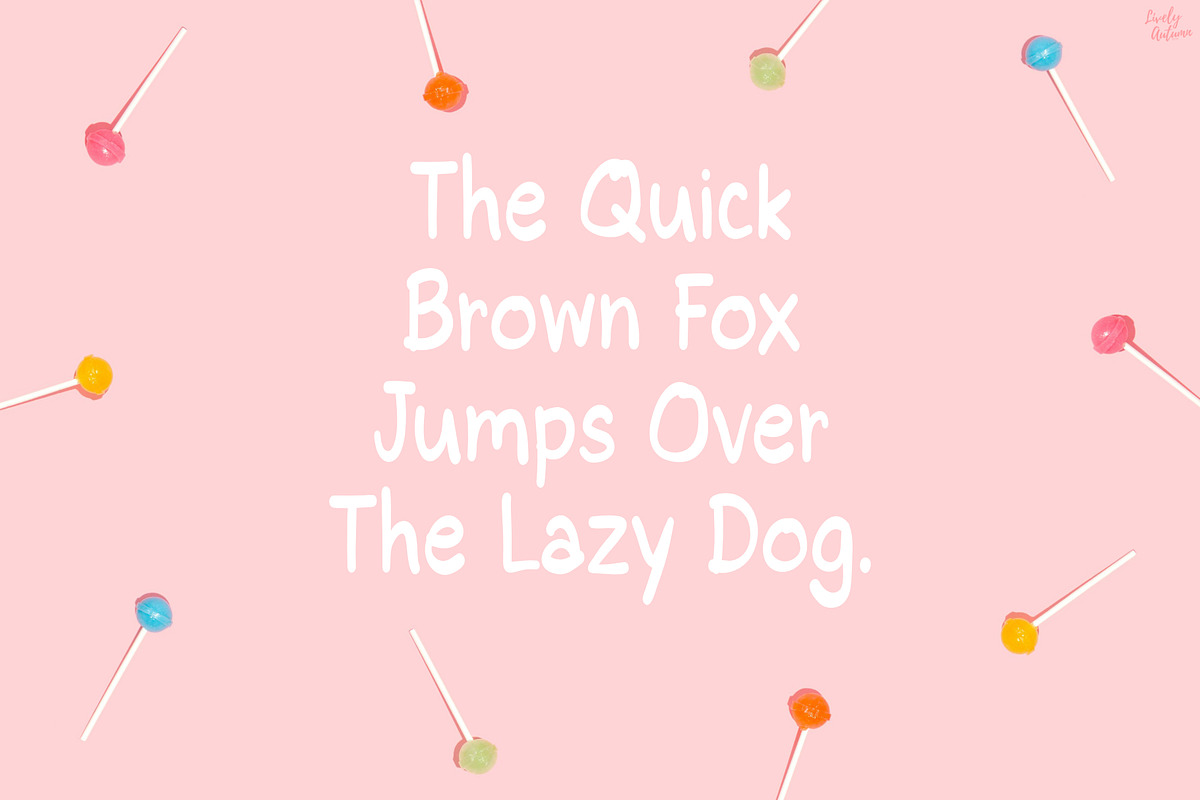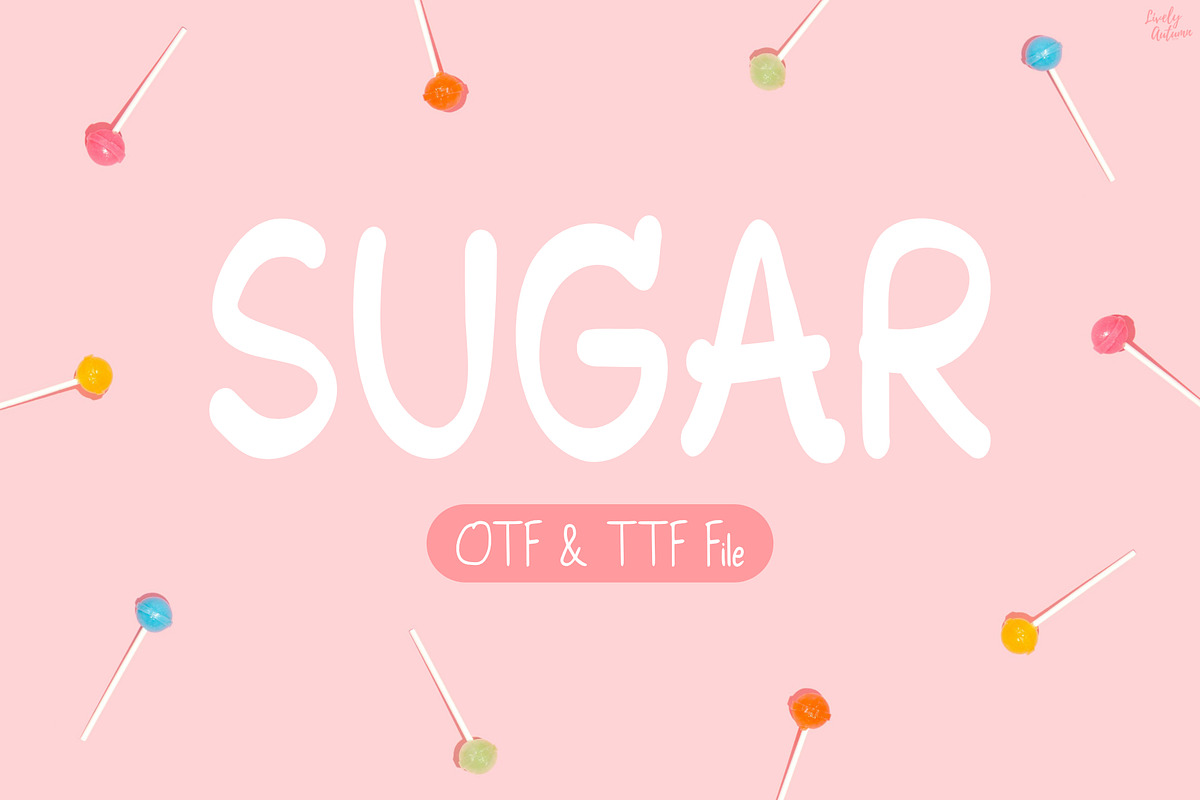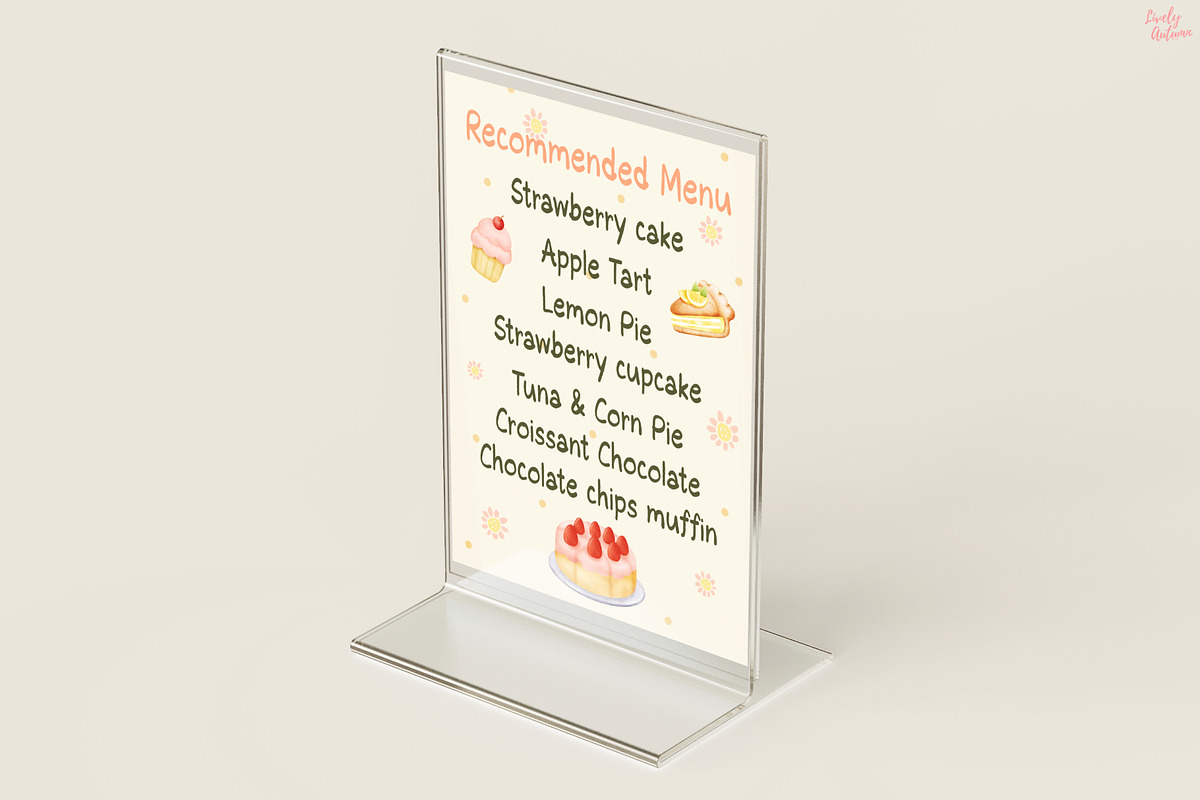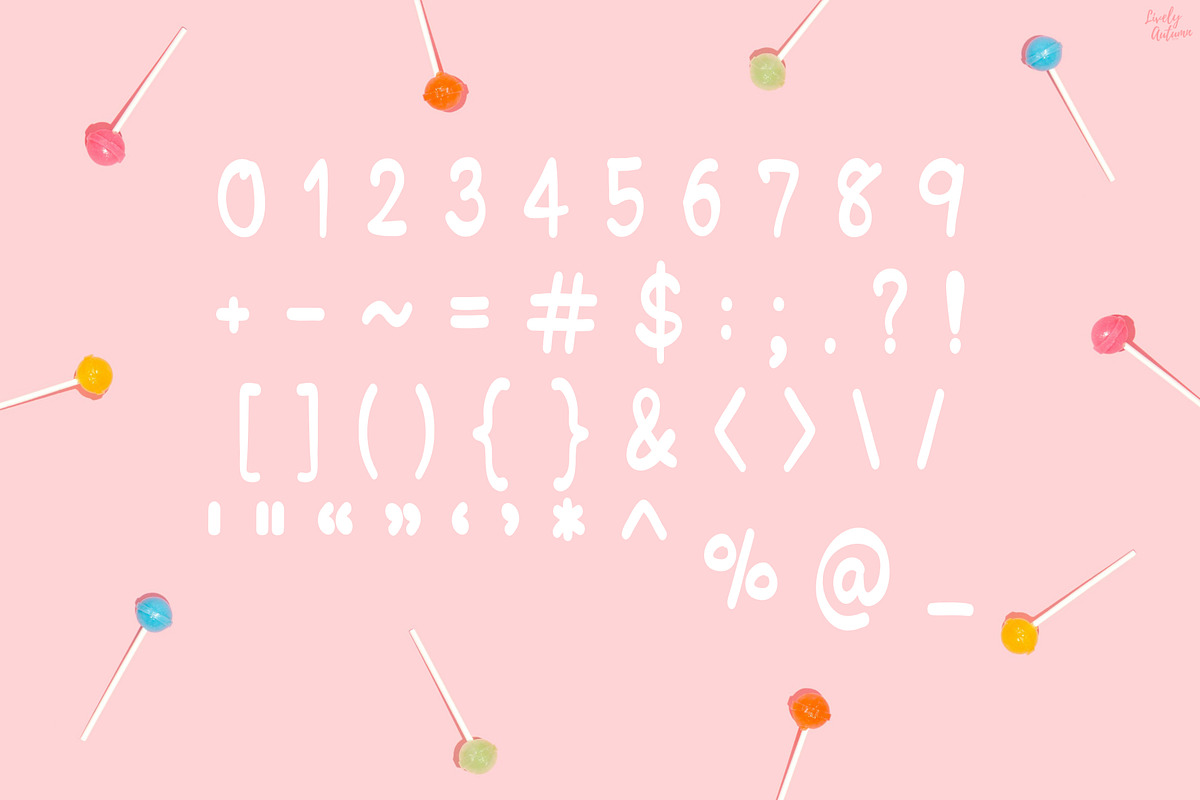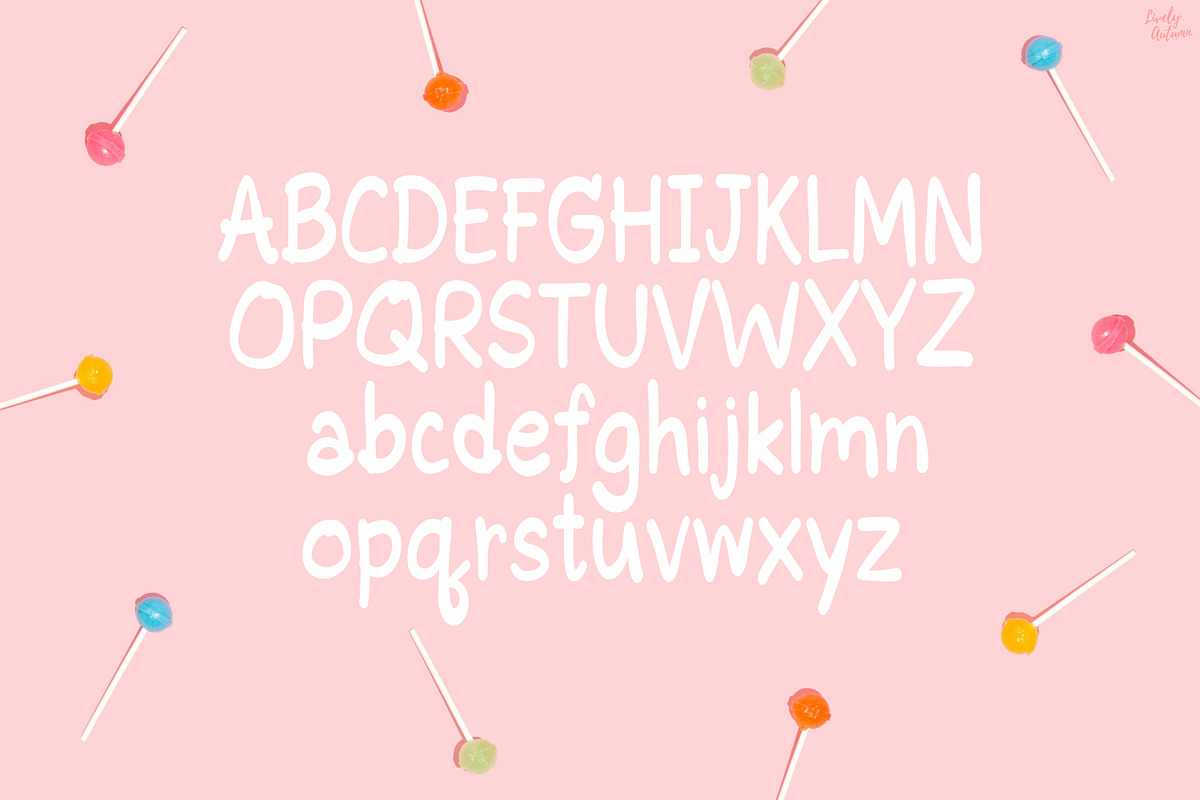
Sugar | Handwriting Font
Sugar Font is a cute handwritten brush font. Perfect for your personal projects and various projects. From invitations to posters, social media graphics, journals, and much more.
- Font includes: uppercase, lowercase, numbers, and punctuation